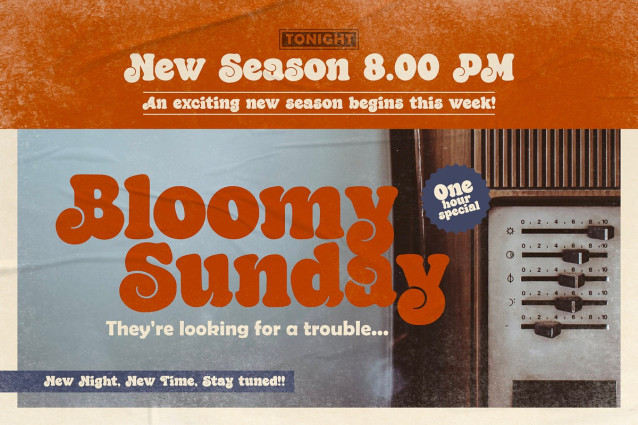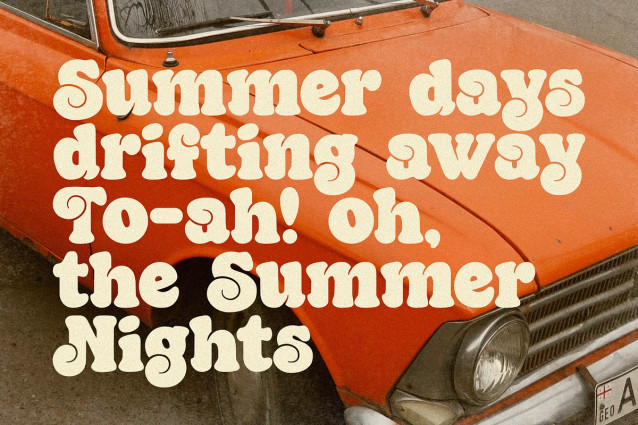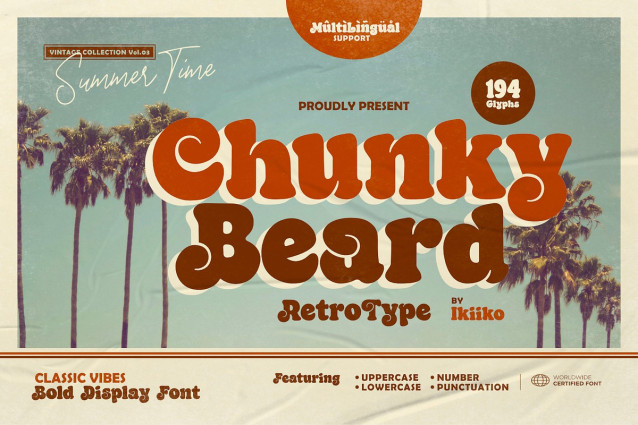
Chunky Beard Font
Chunky Beard Font is a vintage font with bold, rounded letterforms with vintage vibes from the 60’s era. These fonts often have heavy, wide strokes and lack clear borders, giving them a warm and inviting appeal. Rounded edges, exaggerated curves, and exaggerated serifs are some of the characteristics of 60s vintage-type typography. Additionally, they often have very constant stroke weight across letters, further accentuating their distinctive appearance.
From posters and flyers to logos and branding materials, bold typography with a vintage ’60s feel is a great way to add a dash of retro charm to any design project. The font it self is grab people’s attention with their vibrant, fun, vintage appeal and undeniable aesthetic.
This kind is ideal for projects that seek to convey a sense of nostalgia and the retro vibes as well as retro-themed designs. As a movie title, corporate logo, quote, poster design, magazine layout, or just as a chic text overlay to any background image.